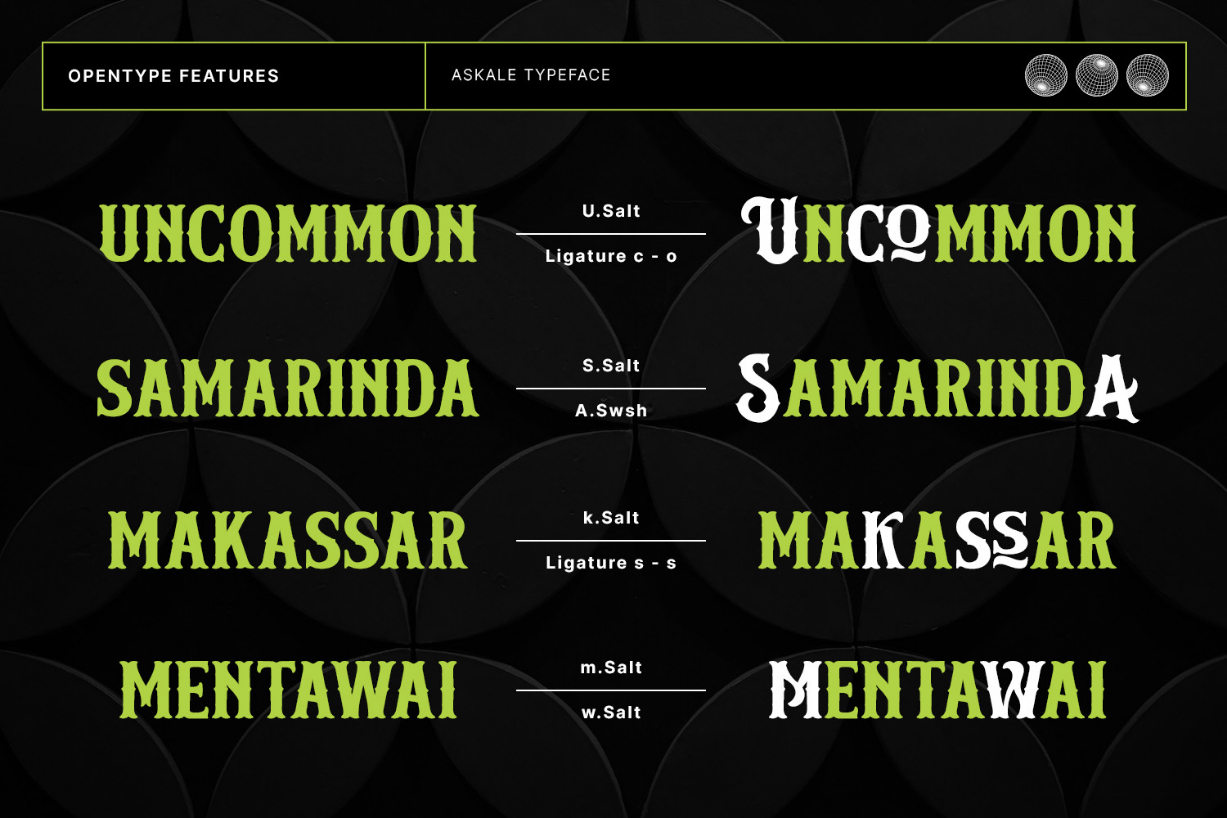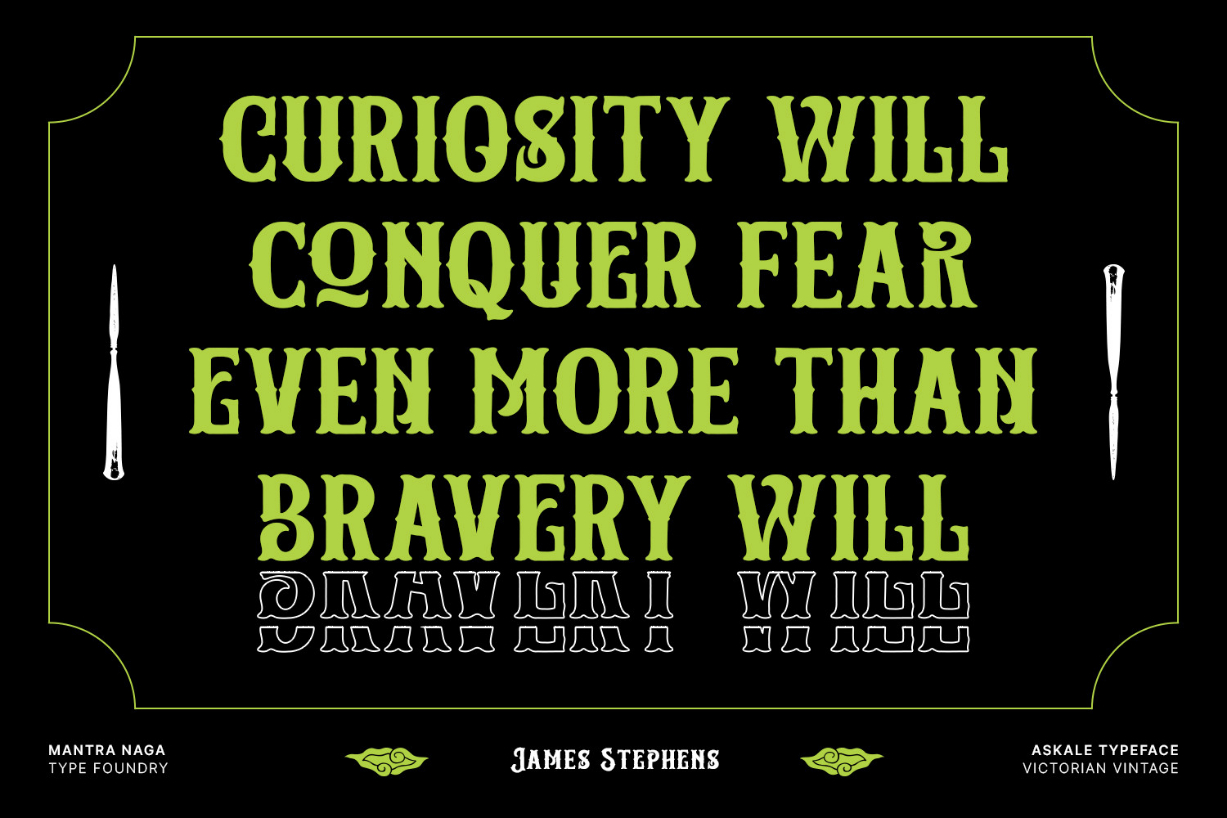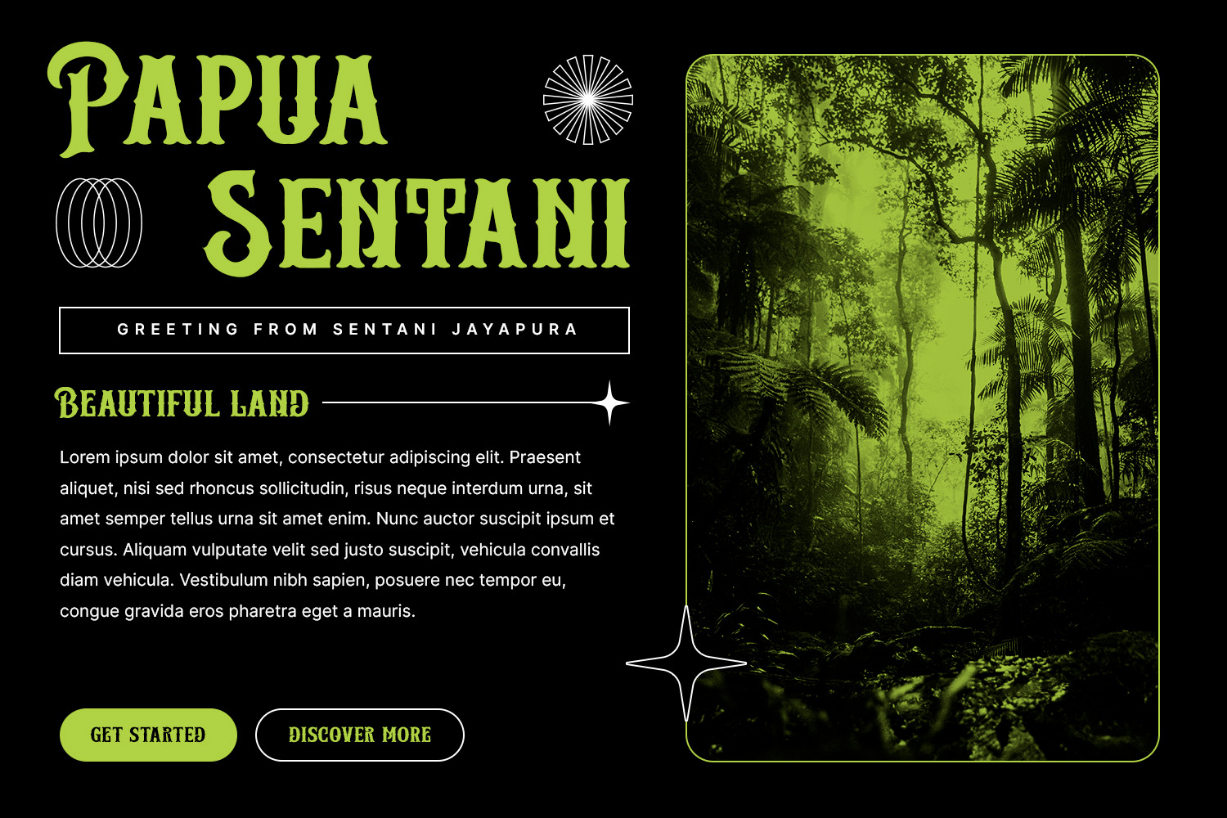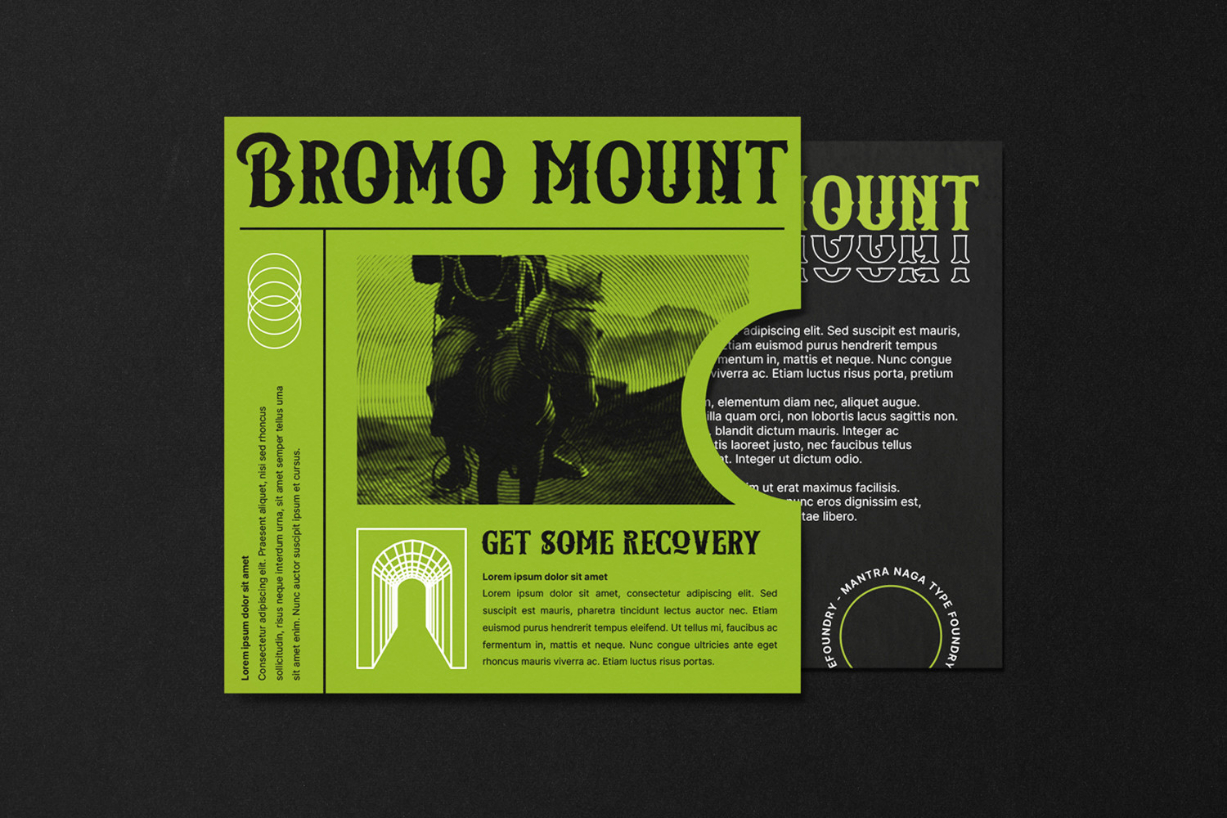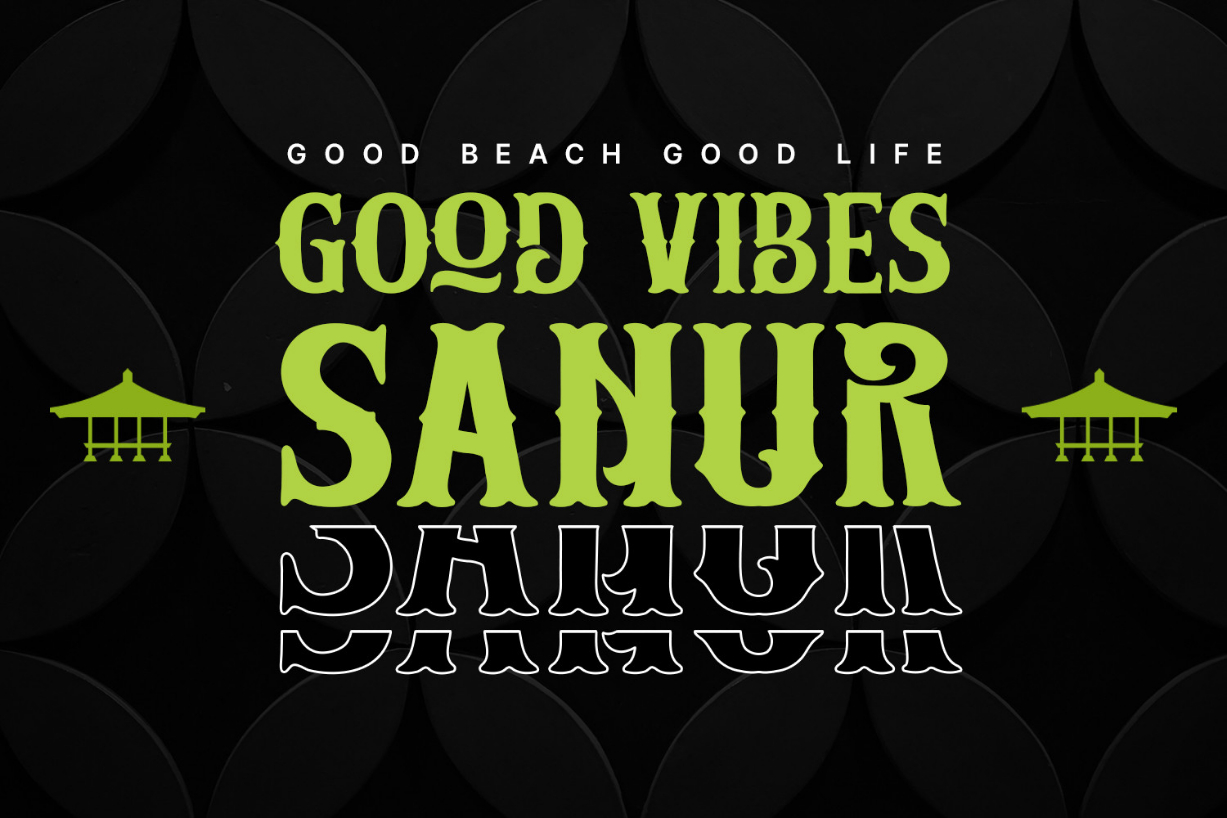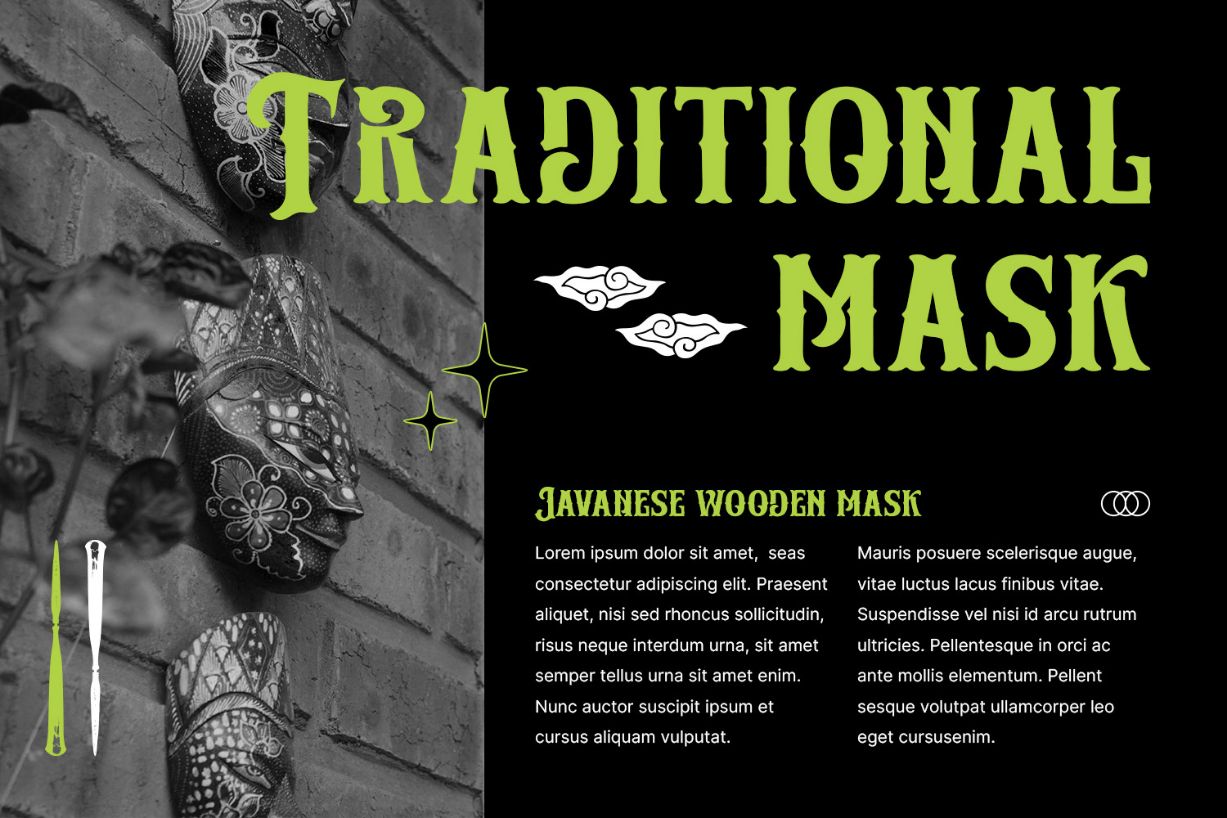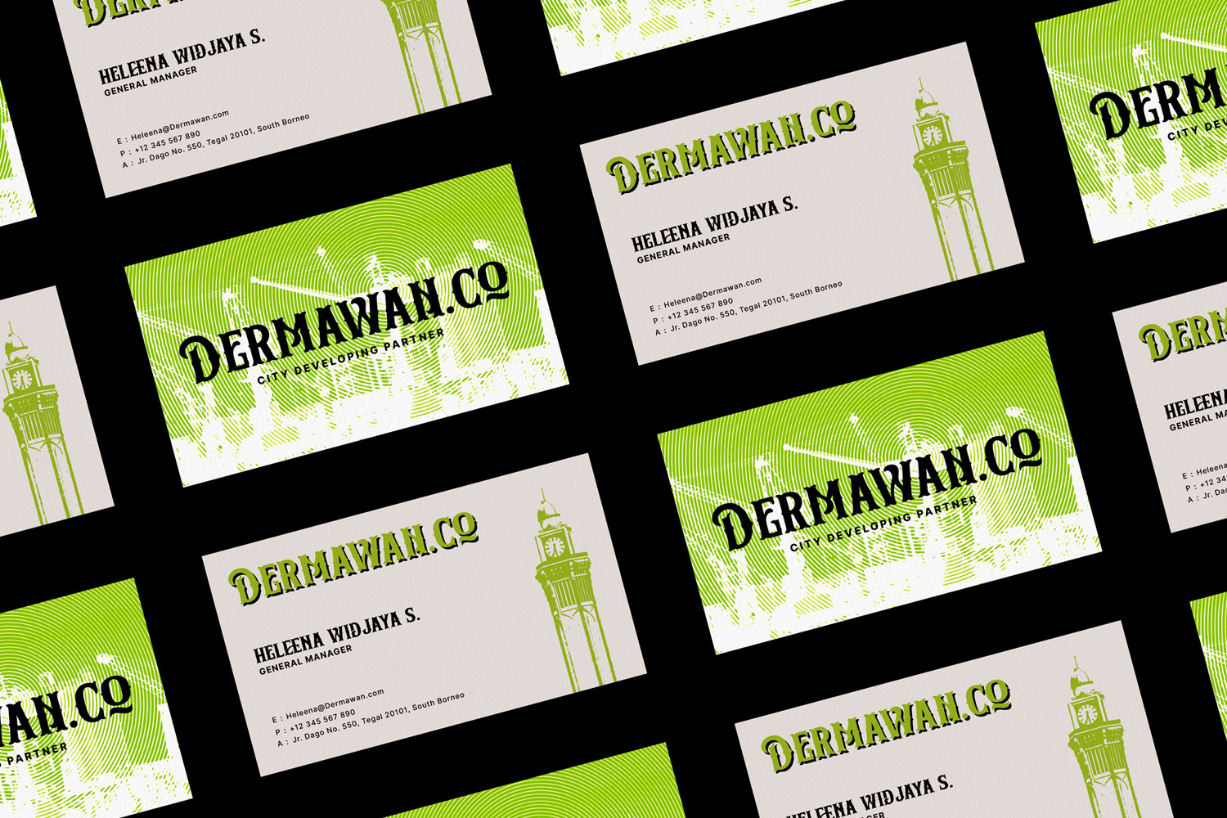
Askale Font
About Askale Font
Introducing Askale – a Victorian Vintage Blackletter Font. This typeface has many alternatives with swashes that can make your lettering/logotype more attractive.
This font is suitable for logos and various other formal forms, such as invitations, labels, logos, magazines, books, greeting/wedding cards, packaging, fashion, makeup, stationery, novels, labels, or advertising. This font is PUA encoded, which means you can access all of the glyphs and swashes with ease!